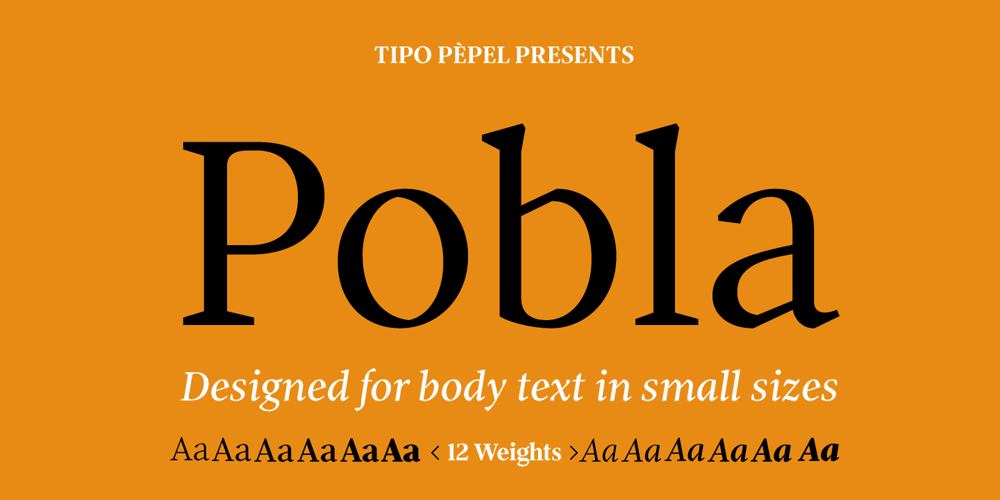
Pobla Font Family was designed by Josep Patau and published by Tipo Pèpel. Pobla contains 12 styles and family package options. Optimum readability in small bodies with scarce interlining, under poor printing conditions such as in newspapers, where velocity and bad quality’s irregular surface papers, truly distort strokes was the challenge taken. Pobla was designed with this in mind, hence Patau present a hybrid between the conventional strokes of a serif’s classical roman type and markedly “fractured” forms inside, providing a unique personality to this typographic family, where calligraphic’s humanistic axis is visibly broken with the straight axis of the fabricated letters. Subtle details in the serifs, give it a modern look to a classic skeleton. Very pronounced ink traps get the shapes rounded in the printed product to artificially increase the average medium-eye and promote reading in the small sizes it was designed for. An absolutely handwriting look for the italics, where the rupture of the stroke marks a white’s subtle change to only whisper in the printing surface a slight difference, but without fuss and so not to break the rhythm of reading. And as we are used to, a complete set of OpenType features, where you will find small caps, fractions, ligatures, old numerals and tabular, discretionary ligatures and support for 220 languages; and all available in twelve weights to meet the needs of any newspaper printing.